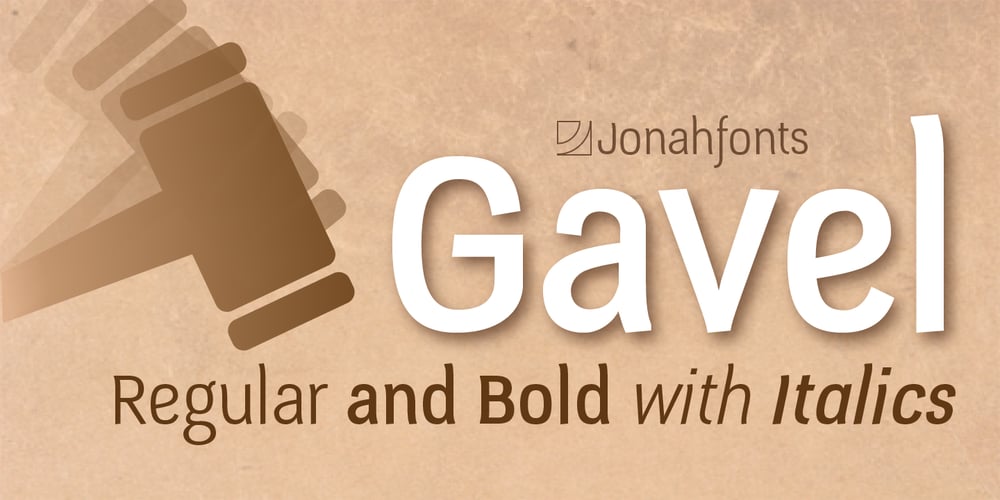
Gavel
Gavel font
Gavel Font Family was designed by John Nahmias and published by Jonahfonts. Gavel contains 4 styles and family package options. A very graphic font with emphasis on legibility, dynamics and modern. Very suitable for a variety of applications.